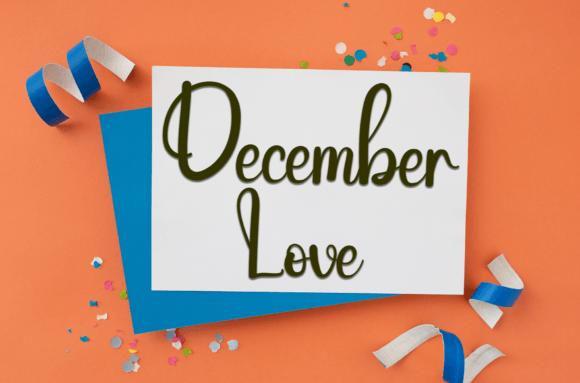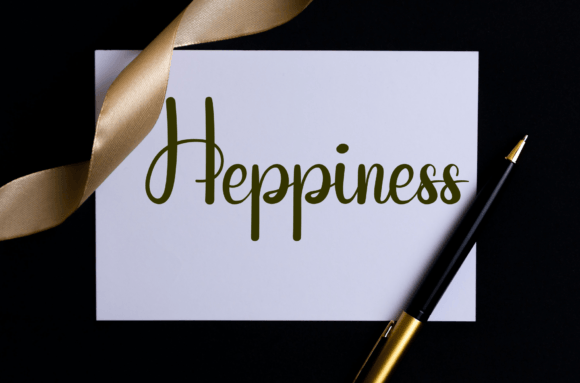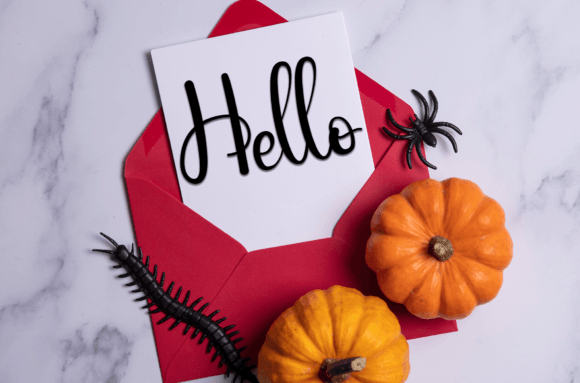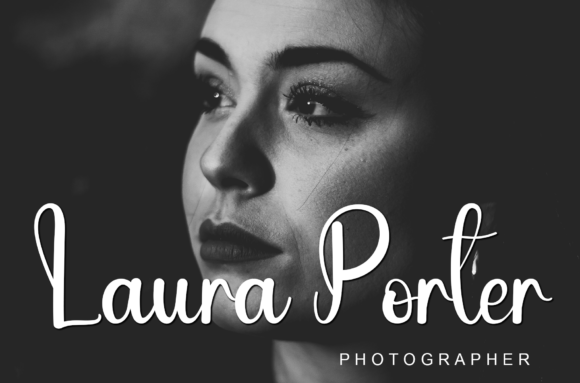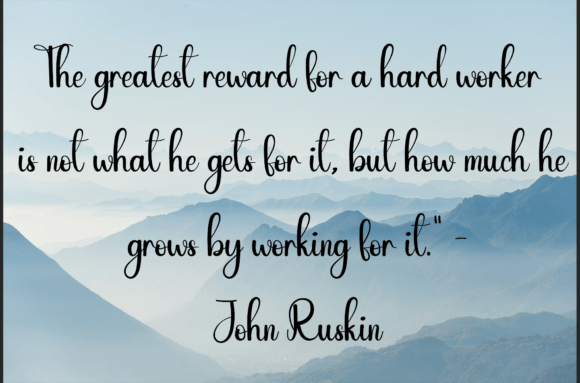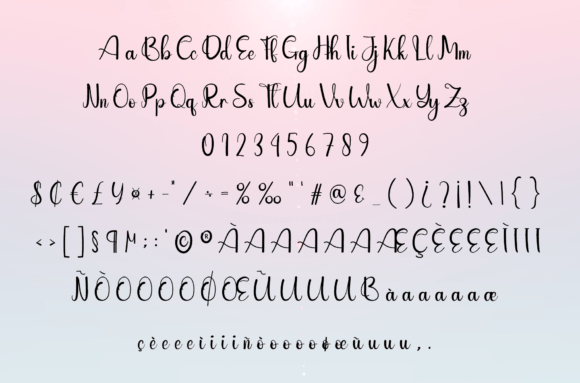
Introducing Blaster Font: The Sweet and Friendly Handwritten Font for Joyful Designs
Are you looking for a font that can add a touch of warmth and friendliness to your designs? Look no further than Blaster Font! This beautiful handwritten font is perfect for creating joyful and relaxed designs that will make your audience smile. In this article, we’ll take a closer look at Blaster Font, its features, and how you can use it to elevate your designs.
What is Blaster Font?
Blaster Font is a sweet and friendly handwritten font that’s perfect for a variety of design projects. It’s fun, relaxed, and ideal for writing wedding invitations, cards, or any other design that might need a joyful touch. The font is carefully crafted to provide a warm and inviting feel, making it perfect for designers and crafters who want to add a personal touch to their work.
Key Features of Blaster Font
- Handwritten style: Blaster Font is a handwritten font that provides a personal and unique touch to your designs.
- Sweet and friendly: The font has a sweet and friendly feel that’s perfect for creating joyful designs.
- Fun and relaxed: Blaster Font is ideal for designs that require a fun and relaxed tone, such as wedding invitations, birthday cards, and more.
- Easy to read: The font is carefully crafted to be easy to read, making it perfect for body text and headings.
Use Cases for Blaster Font
Blaster Font is a versatile font that can be used for a variety of design projects. Here are some use cases where Blaster Font shines:
- Wedding Invitations: Blaster Font is perfect for creating beautiful and unique wedding invitations that set the tone for a joyful and celebratory event.
- Cards and Stationery: The font is ideal for creating greeting cards, birthday cards, and other stationery that requires a personal touch.
- Social Media Graphics: Blaster Font can be used to create engaging social media graphics that add a touch of warmth and friendliness to your brand.
- Branding and Packaging: The font can be used for branding and packaging designs that require a unique and personal touch.
Tips for Using Blaster Font
Here are some tips for using Blaster Font effectively in your designs:
- Pair with other fonts: Blaster Font can be paired with other fonts to create a unique and interesting contrast.
- Use for headings and body text: The font is suitable for both headings and body text, making it a versatile choice for designers.
- Experiment with colors: Blaster Font looks great in a variety of colors, so don’t be afraid to experiment and find the perfect color scheme for your design.
Blaster Font is a beautiful and versatile handwritten font that’s perfect for designers and crafters who want to add a touch of warmth and friendliness to their designs. With its sweet and friendly style, Blaster Font is ideal for creating joyful and relaxed designs that will make your audience smile. Whether you’re creating wedding invitations, cards, or social media graphics, Blaster Font is a great choice for any design project that requires a personal touch.